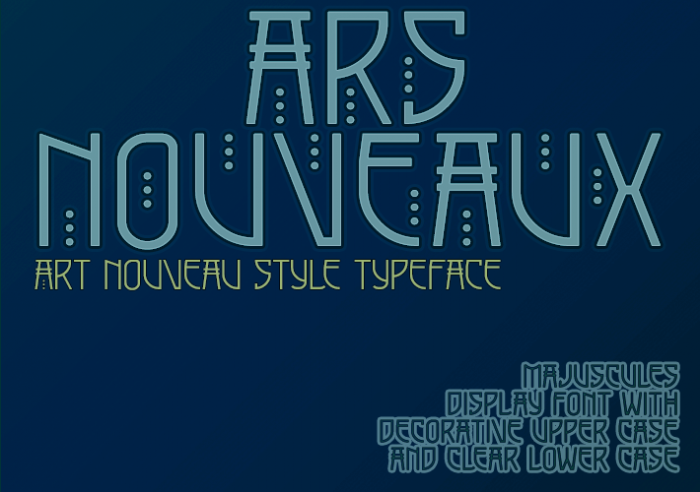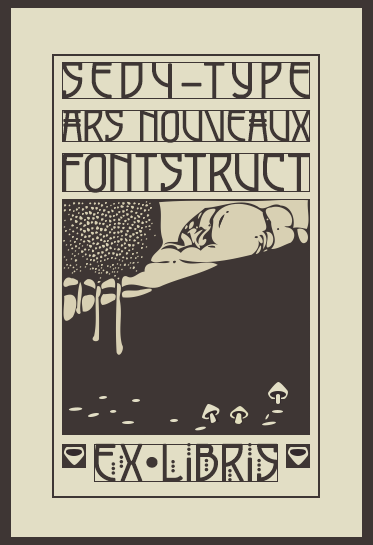
• ARS NOUVEAUX - Art Nouveau inspired display typeface
A personal digital reimagination of the lettering style by "Charles Rennie Mackintosh" (1868-1928), a pioneer of the "Glasgow School of Art" and so called "Arts & Crafts" movement.
His distinctive style of lettering has been seen many revisions, revivals, reimaginations and inspired designs alike over the years, and has evolved into a broad collection of available fonts.
This basic stylistic lettering concept from Mackintosh sort-of losely funcioned as the structural guiding principle for the creation of "Ars-Nouveaux".
This FontStruction is an experimentation into creating similar flavored, but still unique letterforms within that same design framework.
First I started to layout the overall basic asymmetrical core geometry from a set of custom rectangles, half arc's and slants for each of the letters bare skeleton shape. Once I completed the full set of 36 glyphs [a/z, 0/9] These basic shaped were then further modified into more sophisticated finalized letterforms.
Caps-only, but with many alternates, accompanied by a set of ornate initials.
Fantastic design! The ex-libris in the style of Aubrey Beardsley has been very cool. And it's difficult to choose among the large number of variations of some letters. Congrats.
great work , Bravo, I love the dots version, it's sofesticated